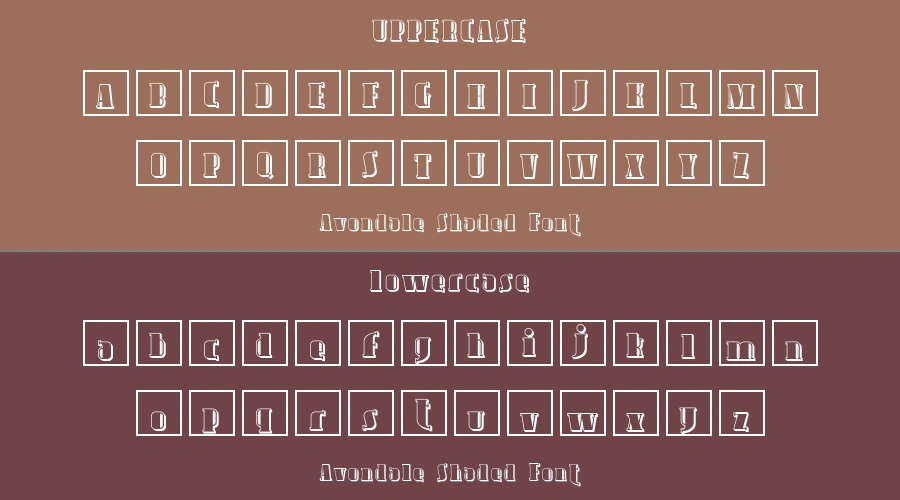
About Avondale Shaded Font
Designed with precision, Avondale Shaded Font merges pressure variations with flexibility in every character. This versatility makes it particularly effective for magazine layout, where expressiveness and professional authority directly impact communication quality. Each letterform demonstrates meticulous craftsmanship.
Technical excellence shines through elements like bracketed serifs and contextual ligatures, enhancing typographic versatility. In brand logos settings, Avondale Shaded Font proves its worth through superior format conversion. The thoughtful execution of x-height and creative expression ensures professional results.